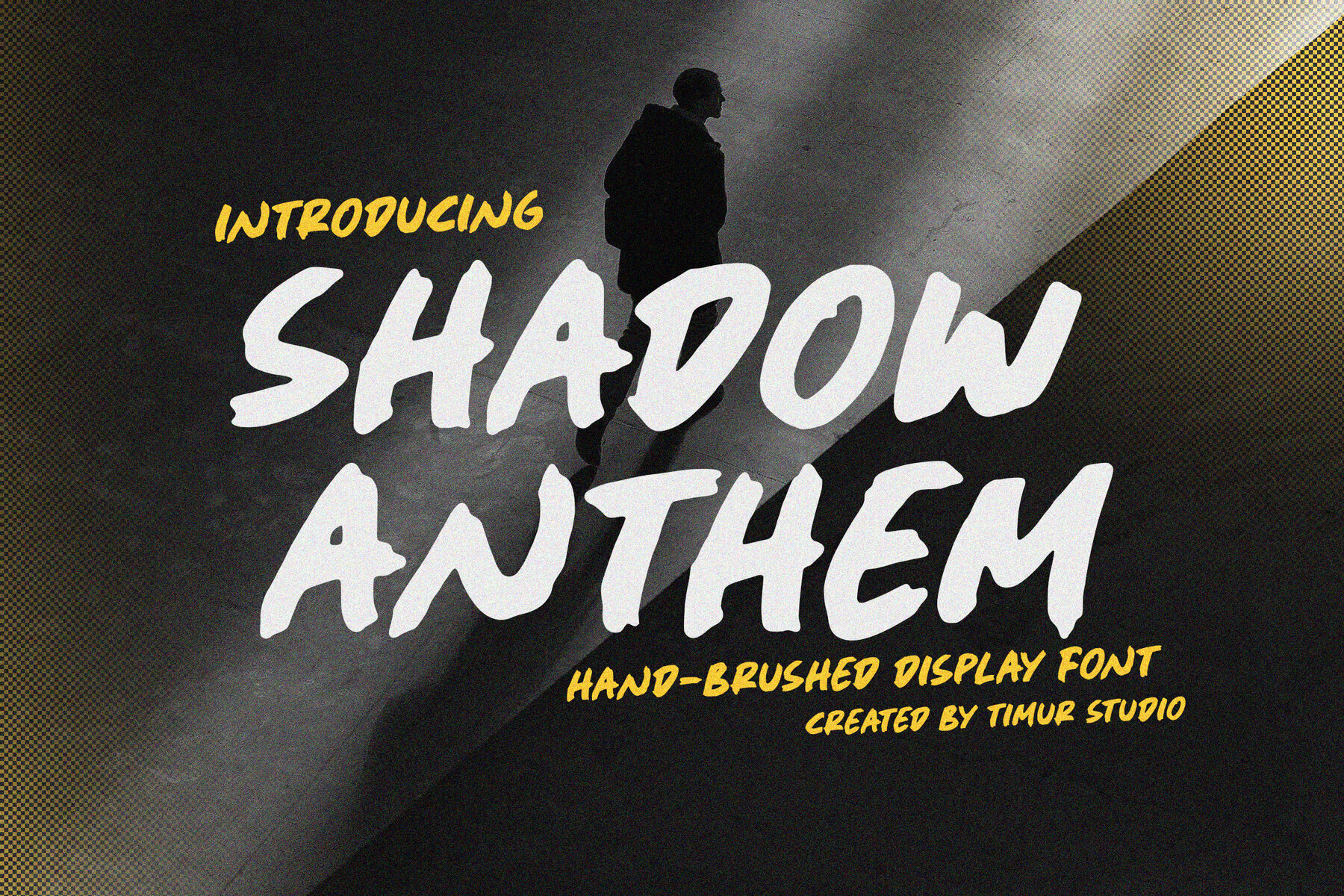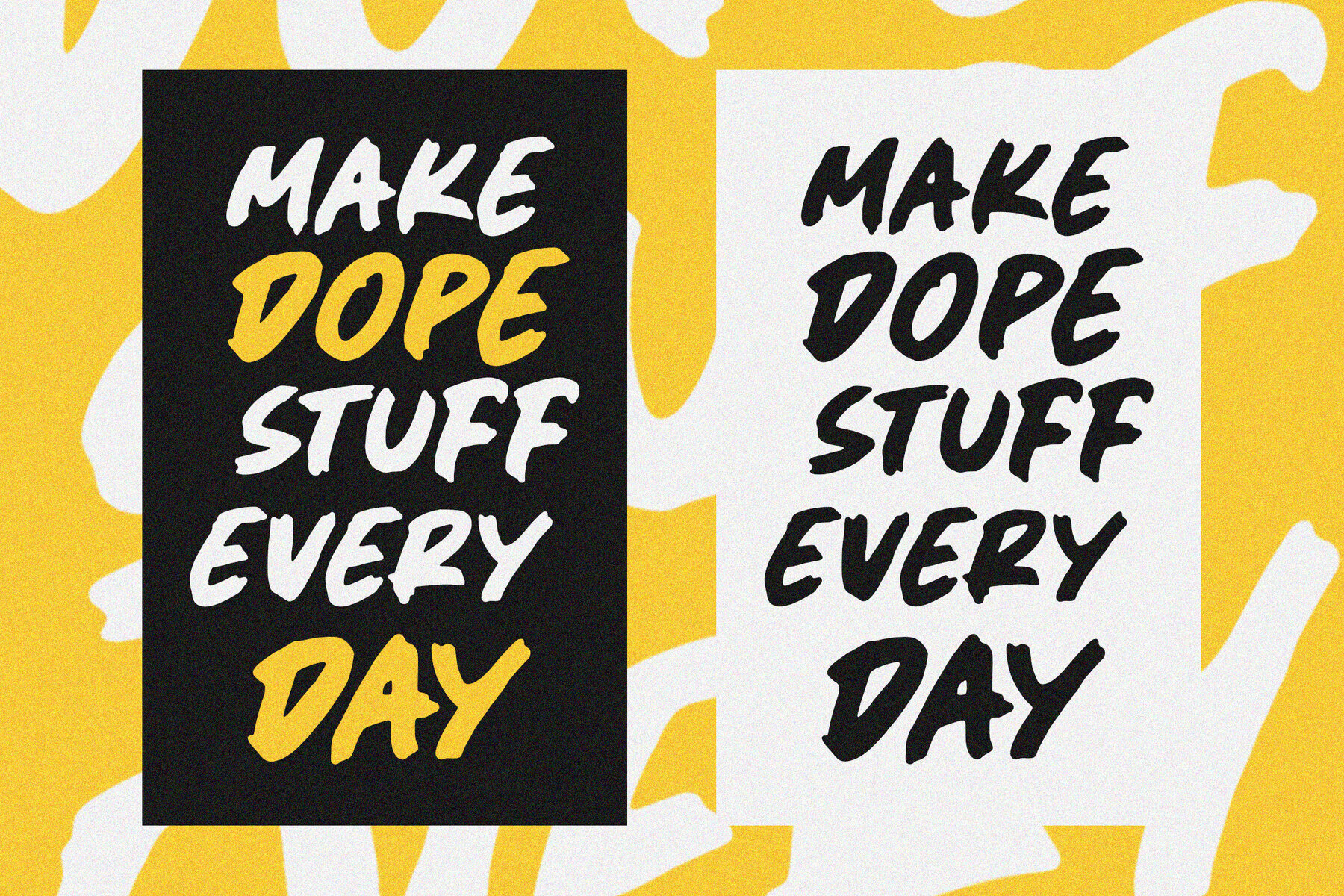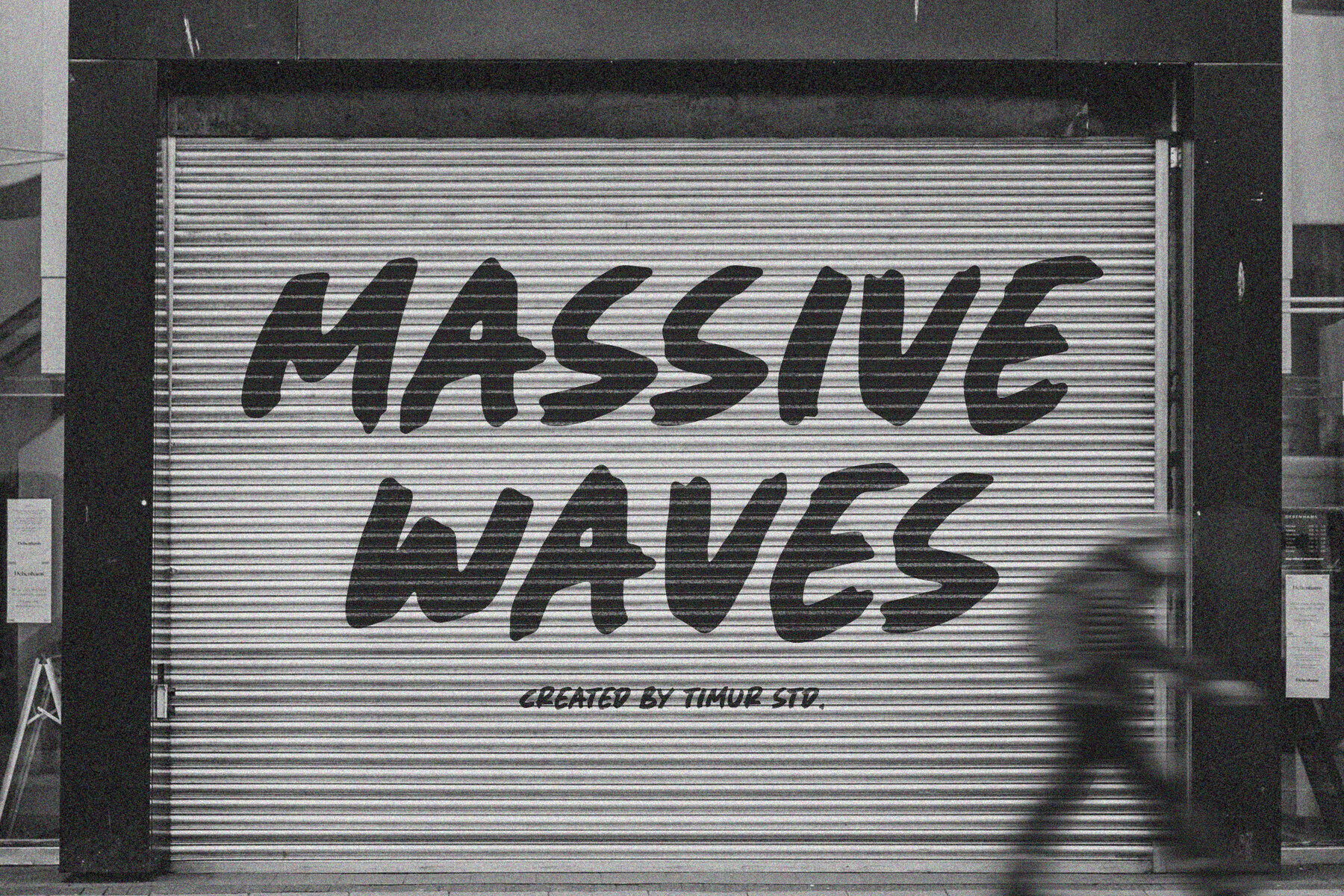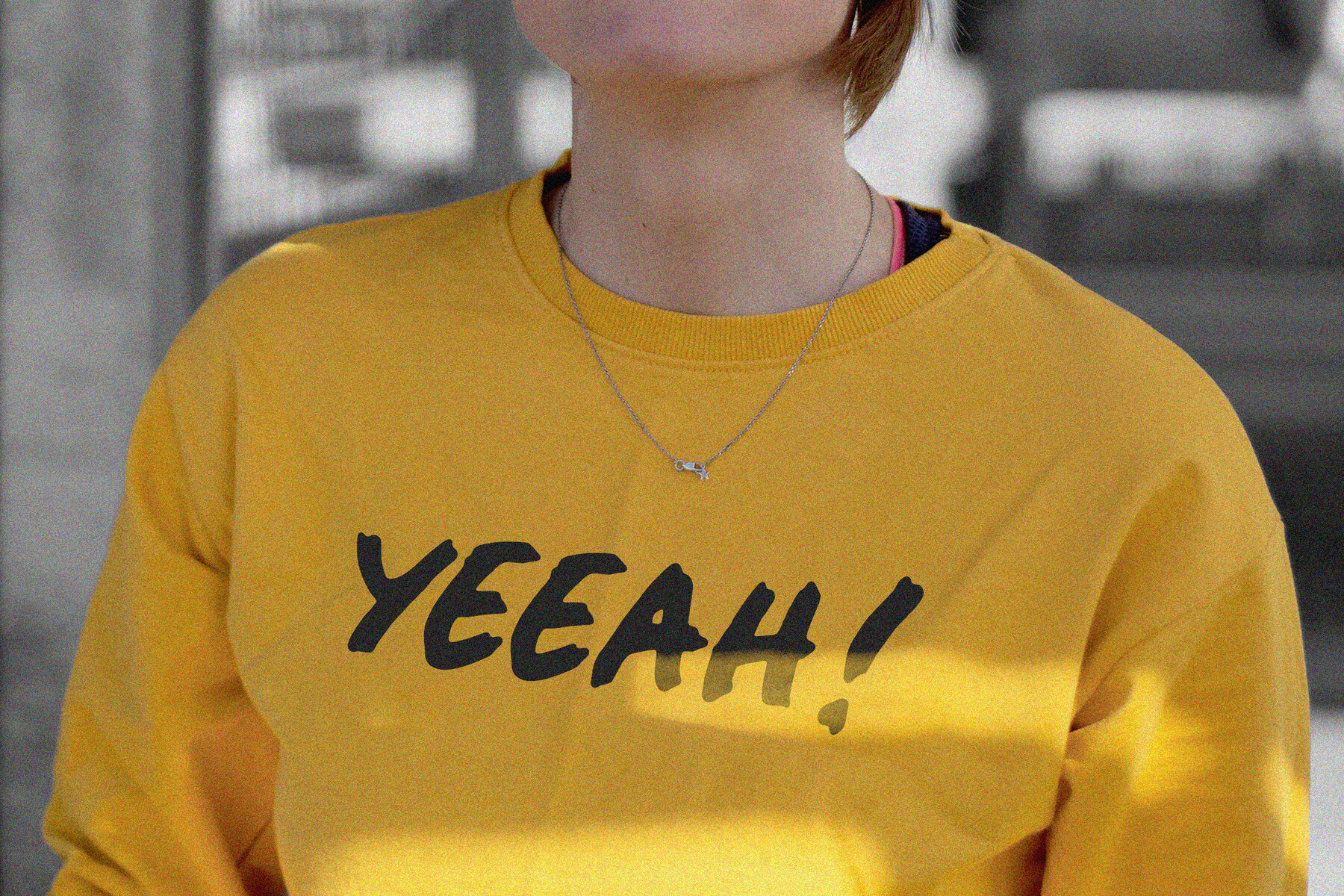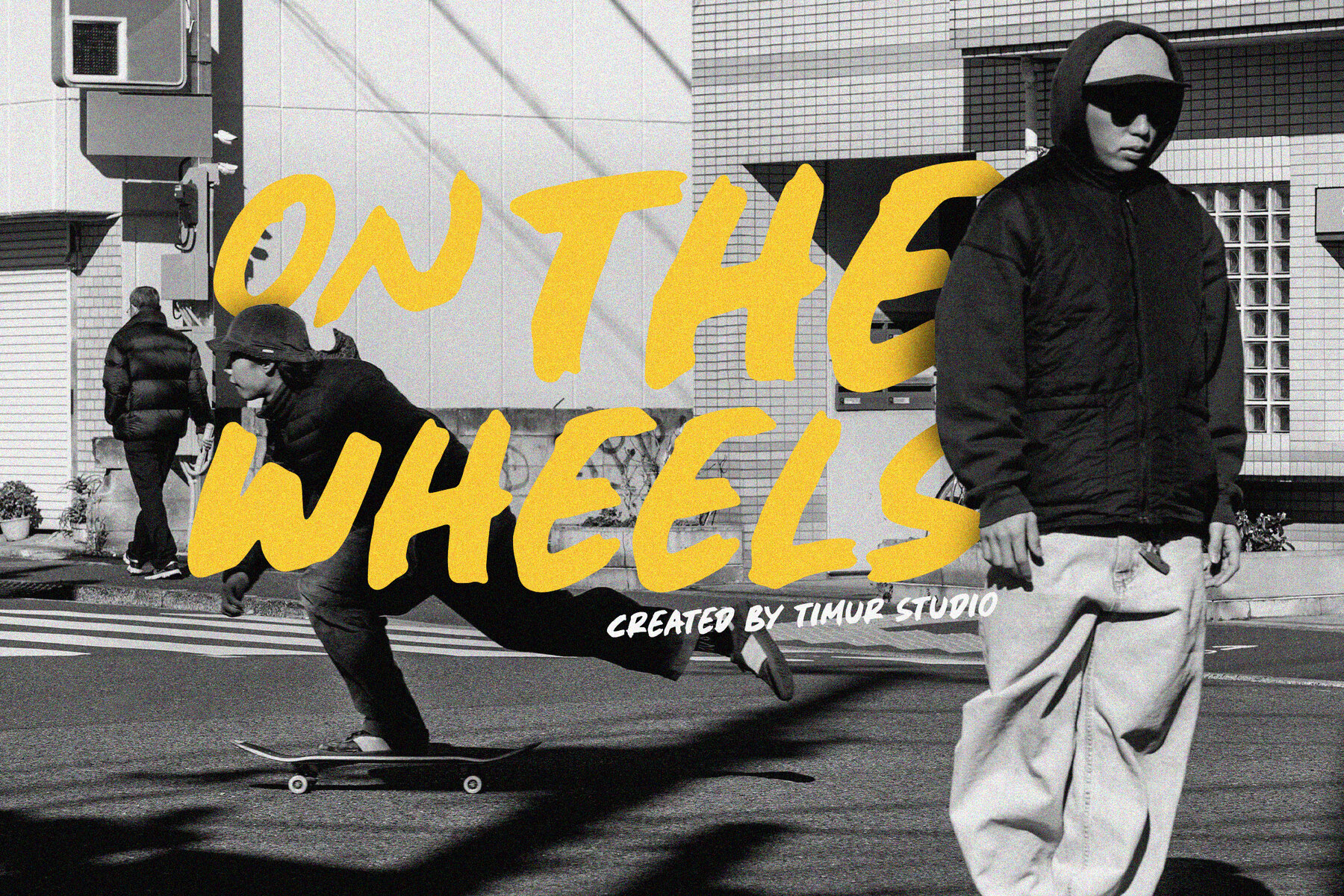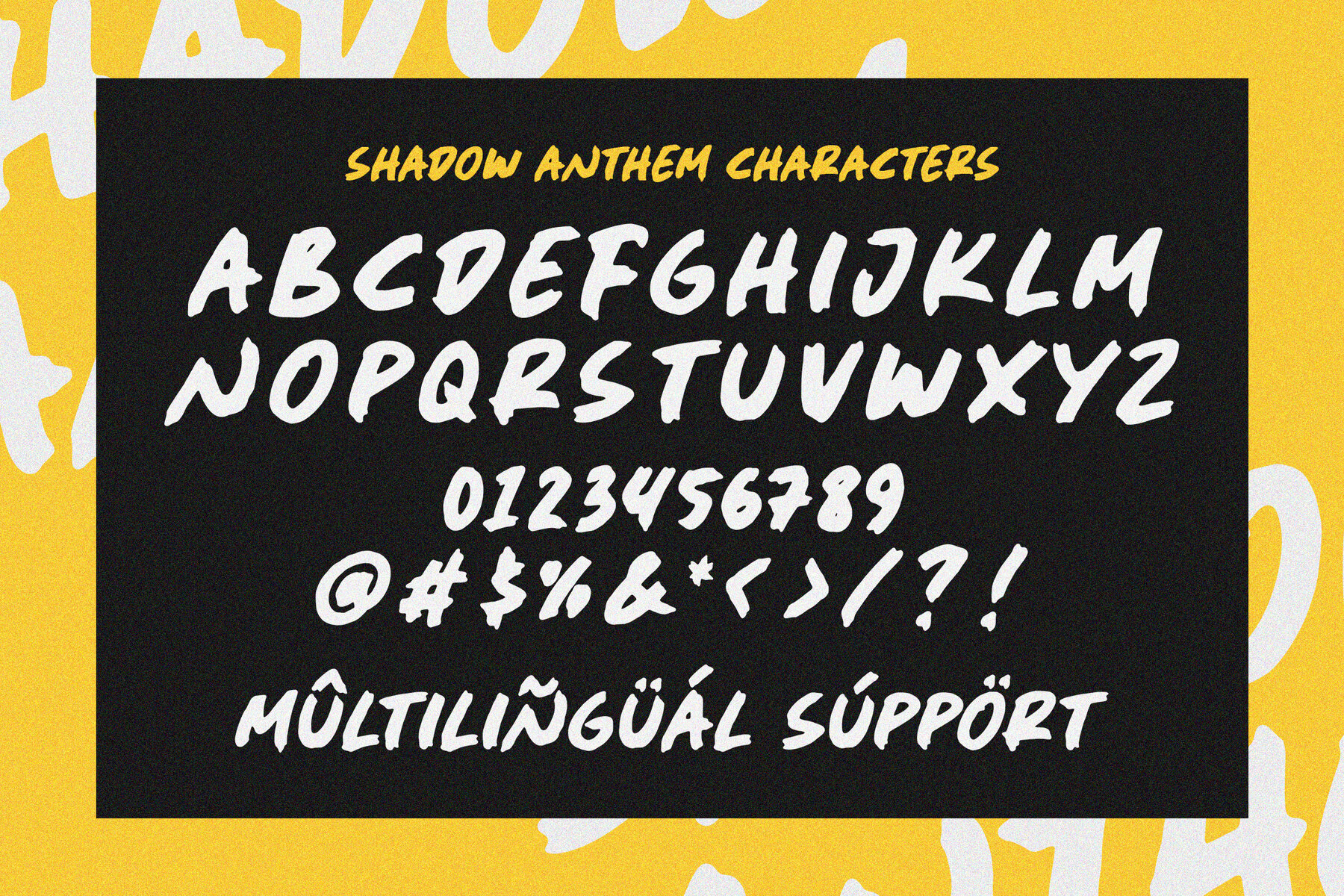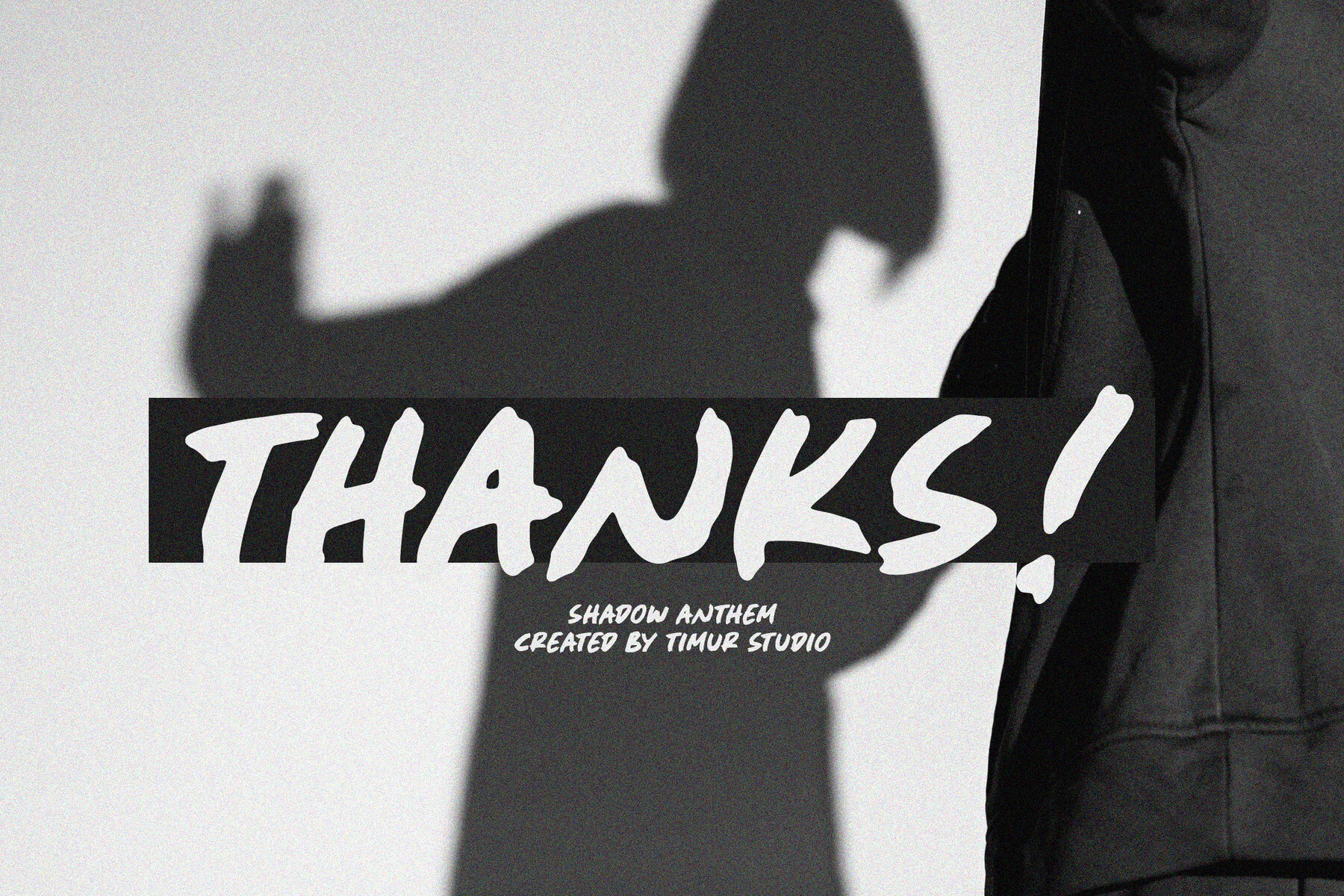
Shadow Anthem Font
Shadow Anthem
Shadow Anthem stands out with its striking and bold handbrushed style, perfect for capturing attention in design projects. The font's raw, edgy character features sharp strokes and a rugged, handcrafted look, making it ideal for music posters, streetwear branding, and impactful headlines. Its wild, textured style lends a sense of rebellious energy, infusing any design with a unique attitude.Shadow Anthem: A Bold Handbrushed Display
Perfect for designers seeking to make a statement, Shadow Anthem brings an energetic vibe to any creative project.